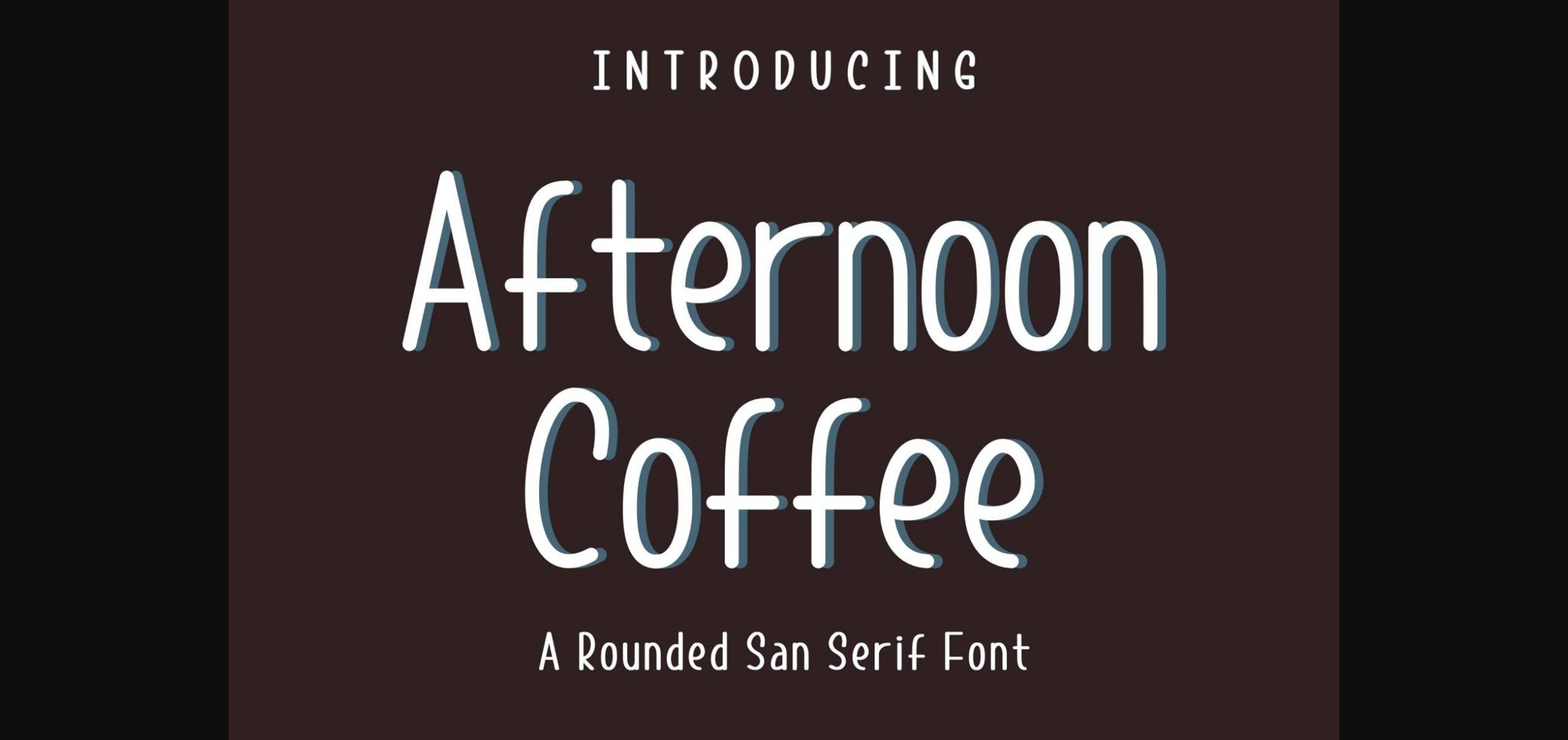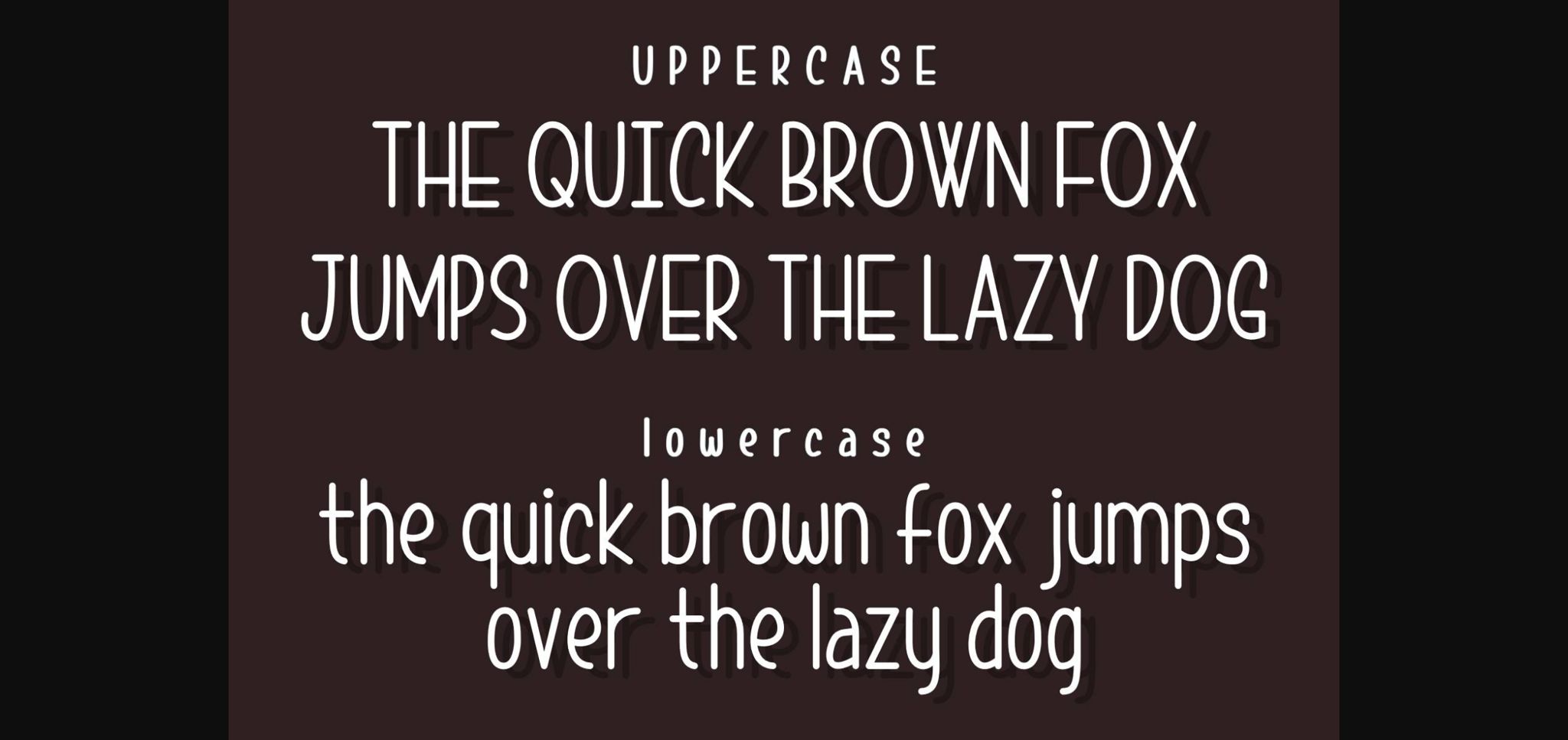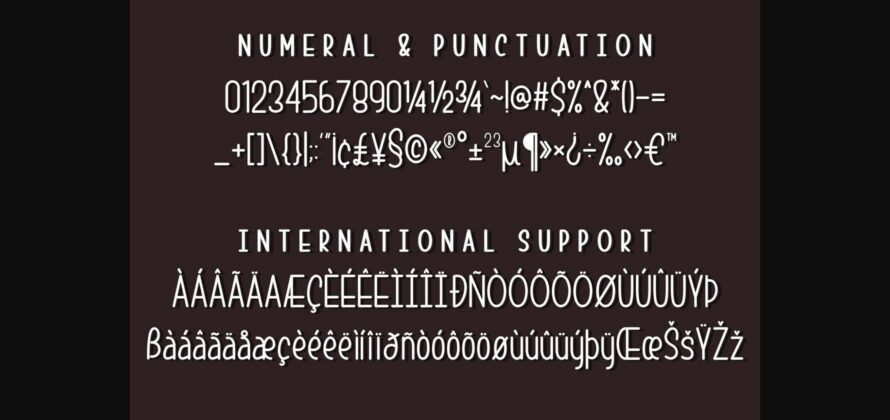
About Afternoon Coffee Font
Afternoon Coffee feels like taking a break. This cute and casual sans serif font is the ideal font for giving any design projects a laid-back and down-to-earth feel!